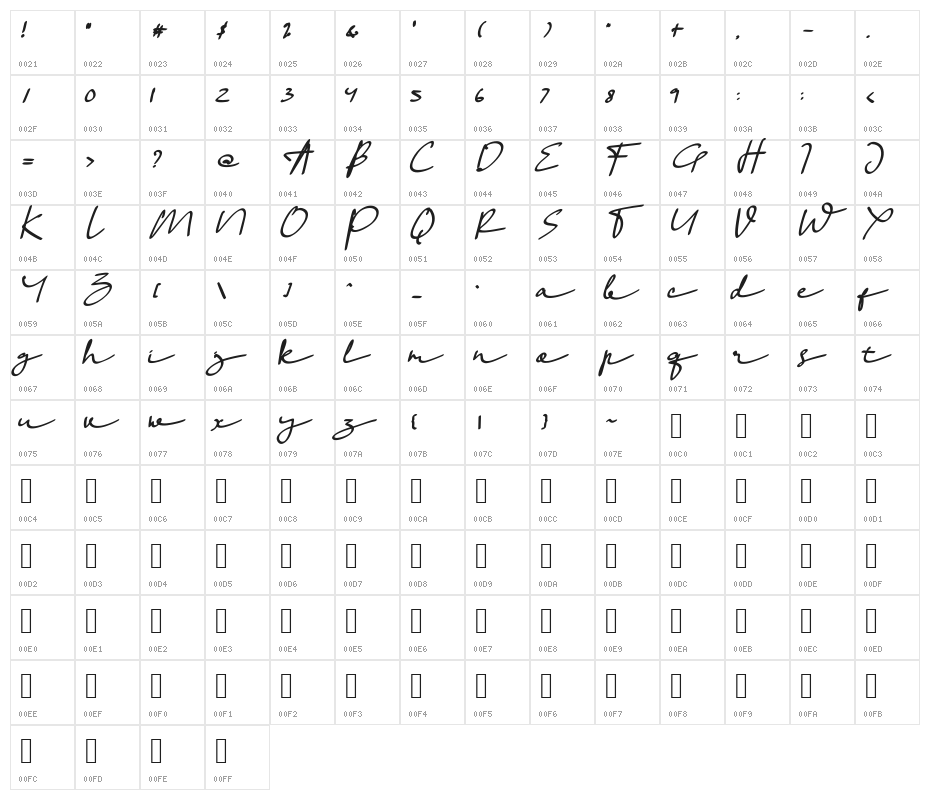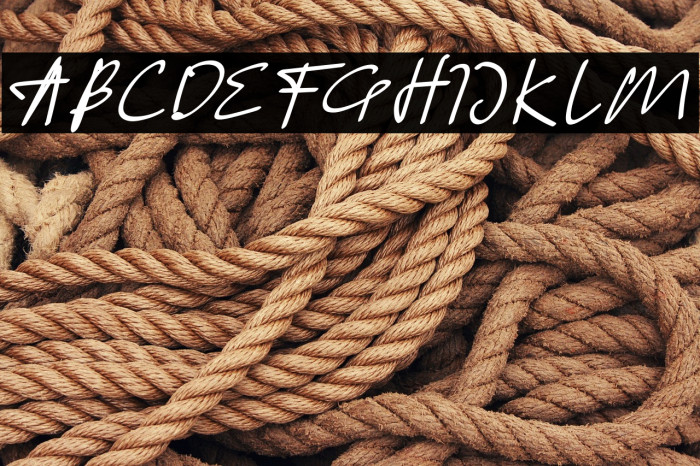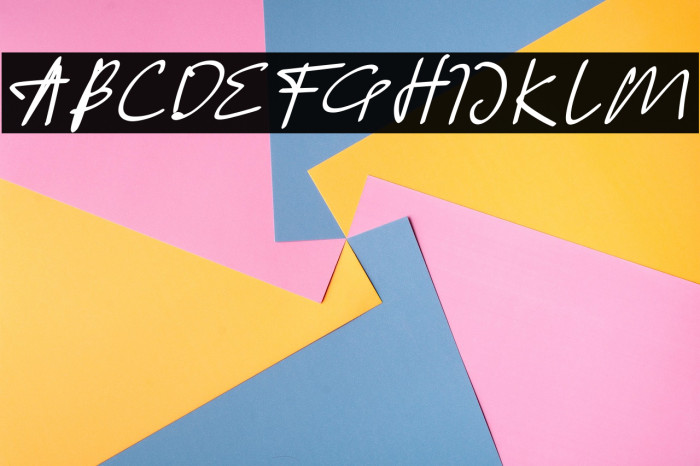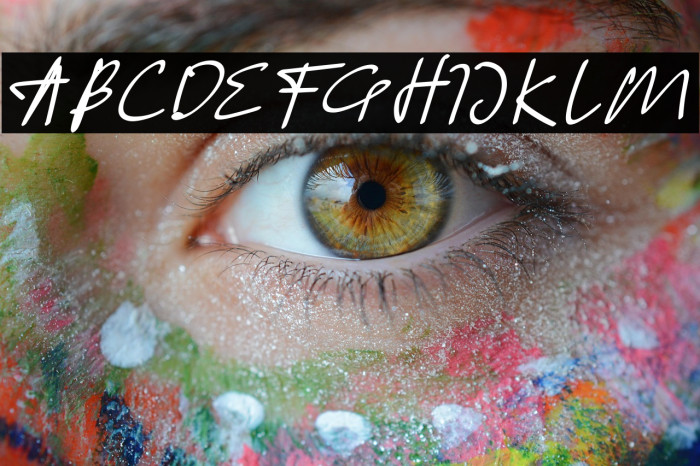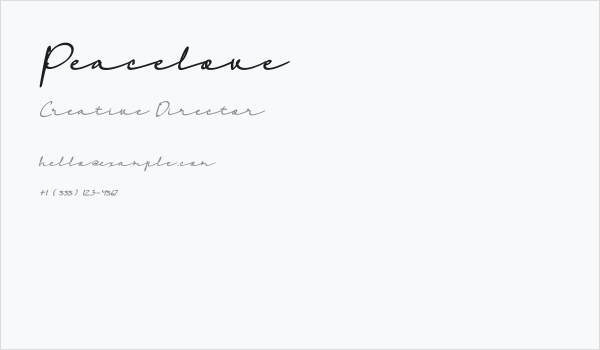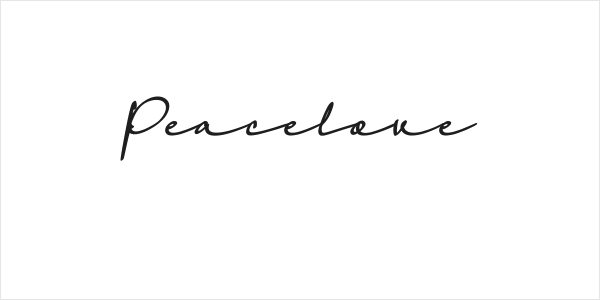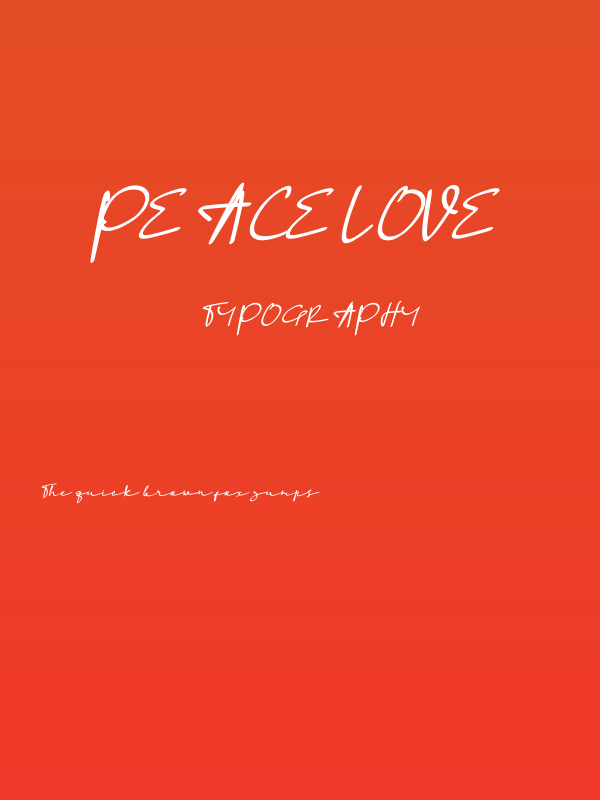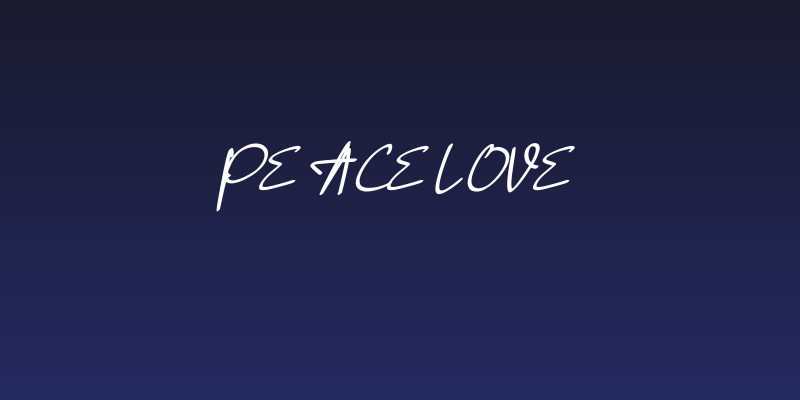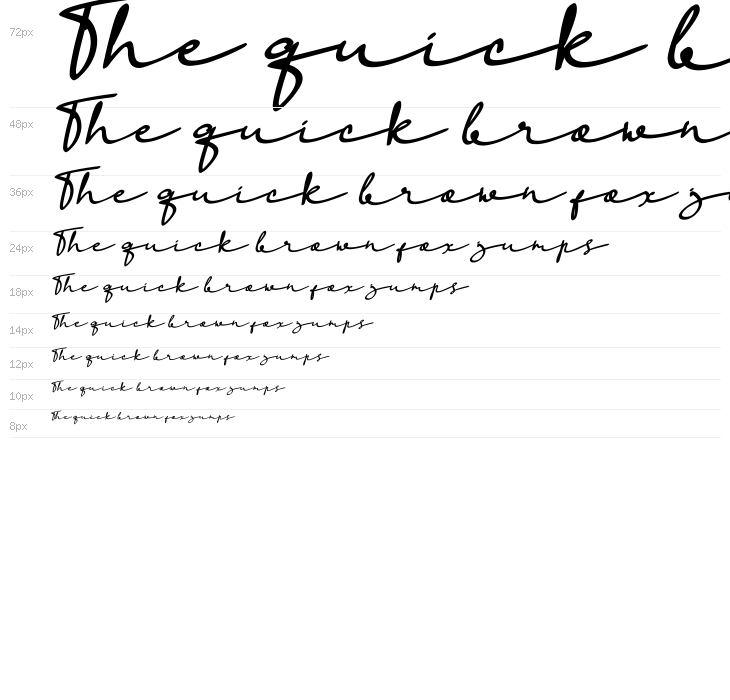
Peacelove Font
Peacelove Description
This font exudes a casual and fluid handwritten style, characterized by its smooth, flowing strokes and slight slant. The uppercase letters are bold and dynamic, with a playful yet elegant flair, while the lowercase letters maintain a consistent rhythm and grace. The numerals are clear and legible, complementing the overall aesthetic. Special characters are thoughtfully designed, maintaining the cohesive look of the font. The overall appearance is both approachable and stylish, making it suitable for a variety of creative applications.
| Overall Style | Casual, Elegant |
| Use Case | Logos, Invitations, Social Media Graphics |
| Proposed Projects | Ideal for personal branding, invitations, greeting cards, and social media graphics. |